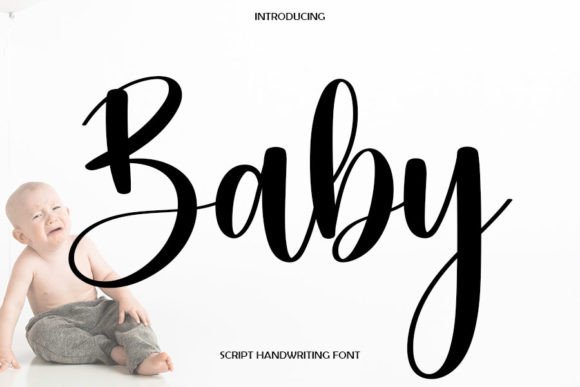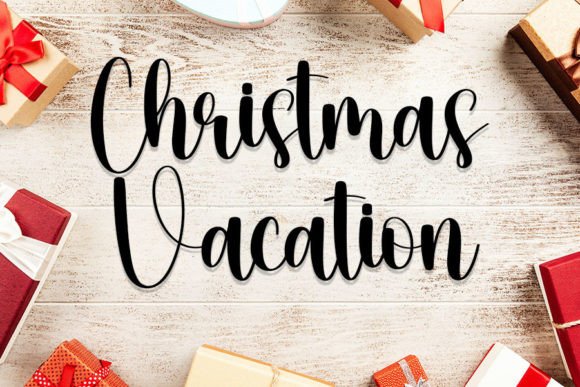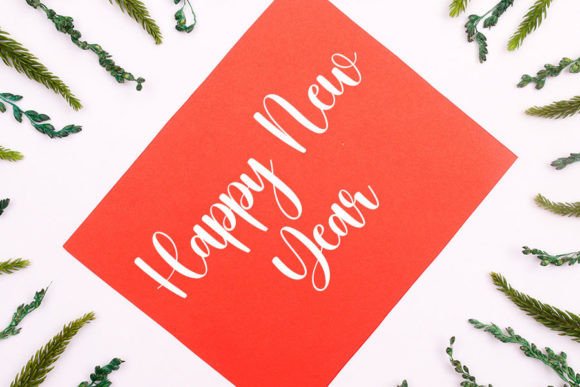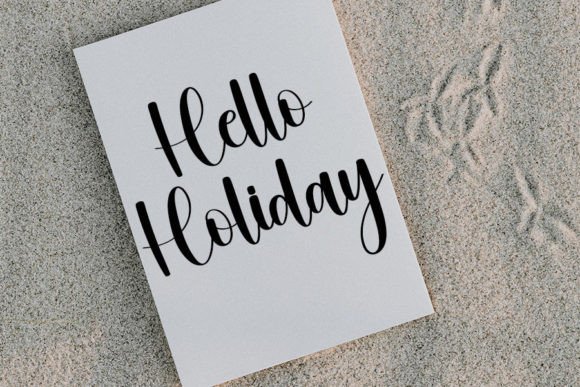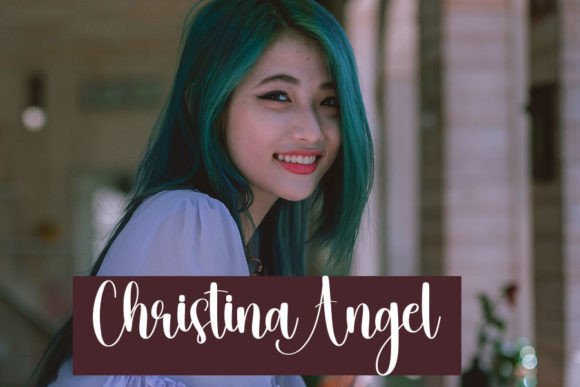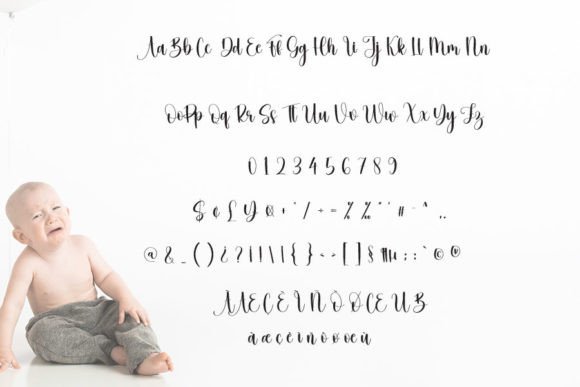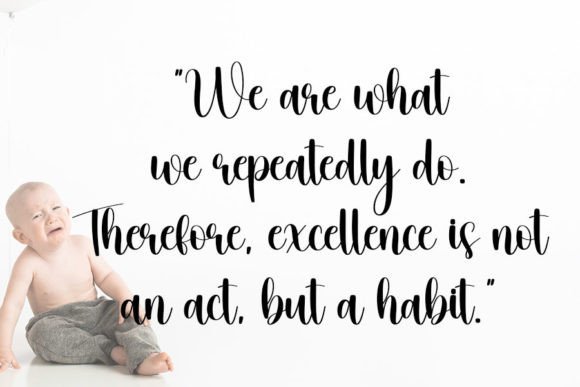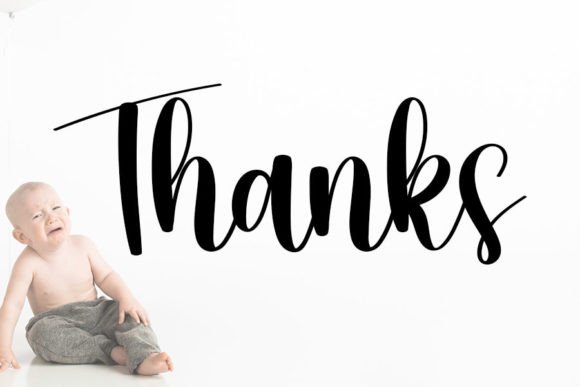
Baby Font
About Baby Font
Baby font is a stylish handwritten typeface that perfectly blends a contemporary feel with the timeless elegance of classic calligraphy. Its balanced and varied strokes provide a unique charm, enhancing the visual appeal of any design.
Elegant and Contemporary Design
This font draws inspiration from traditional calligraphy while maintaining a modern aesthetic. Each character features carefully crafted curves and forms that give your text an impeccable, graceful look. Whether used in print or digital formats, Babyfont adds sophistication and clarity to your designs.
Versatile Use Cases
The versatile nature of Babyfont makes it ideal for a wide range of creative projects, including:
• Logo design: Bring personality and refinement to your brand identity.
• Wedding invitations: Create romantic and memorable cards.
• Social media graphics: Capture attention with elegant handwritten text.
• Product packaging: Give your products a stylish and authentic look.
• Business cards and stationery: Impress with professional yet artistic typography.
Why Choose Baby Font?